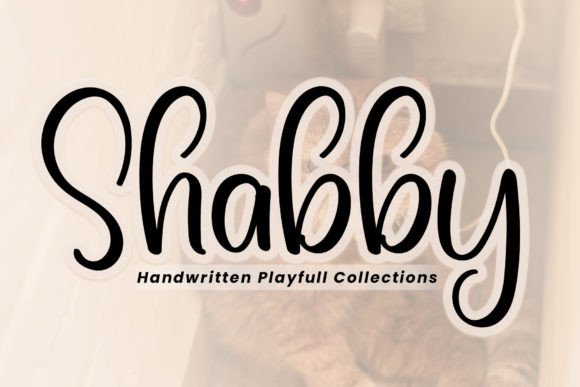
Are you searching for the perfect font to elevate your signature style? Look no further than Shabby Font, the ultimate script font designed by the talented team at 21Design.
Shabby Font is not just any script font; it is The Best Font For Signature. With its unique and captivating design, Shabby Font is perfect for those looking to add a touch of elegance and sophistication to their signature style.
This font is versatile and can be used for a variety of projects, from crafting to magazine layouts. Its beautiful curves and flowing lines create a stunning display font that is sure to catch the eye of anyone who sees it.